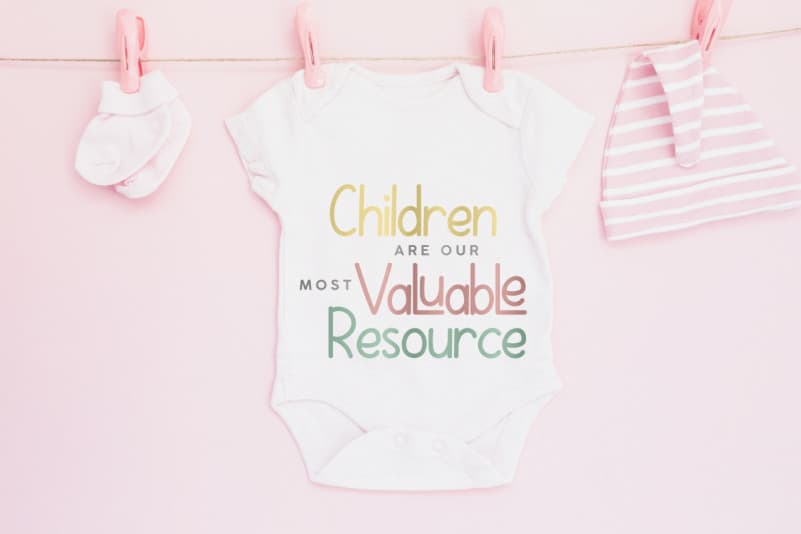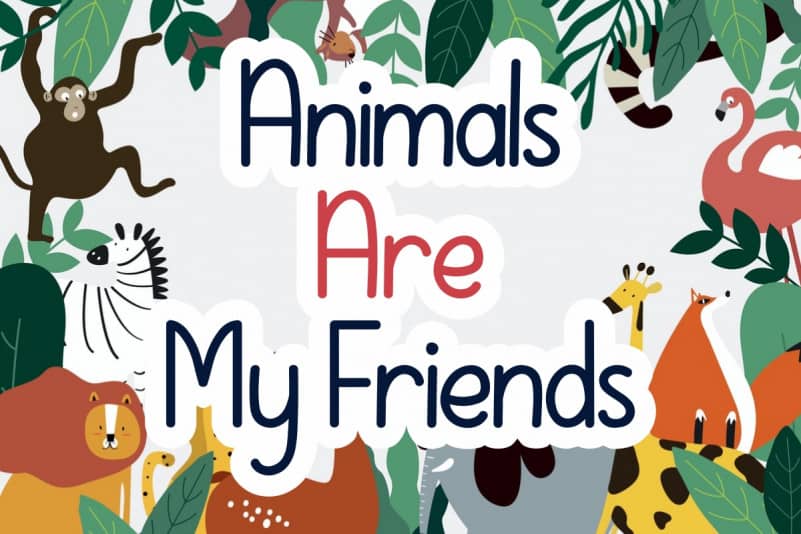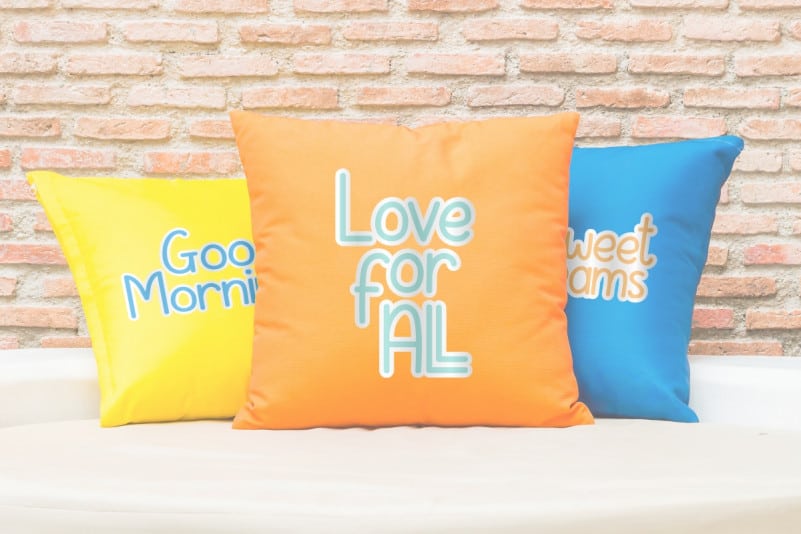
Nuvella Display Font
Nuvella Display Font is an exclusive handmade font with unique styles : fun, cartoon, casual, stylish and classic writing style. It has a great characters set, perfectly managed with well spaced and kerning.
Nuvella Display Font will be great for any projects including : branding and logo (with extended license), stationery, business card, signage, flyer, brochure etc. Many industries will be match for this typeface: school, game, events, non profits foundation, community etc